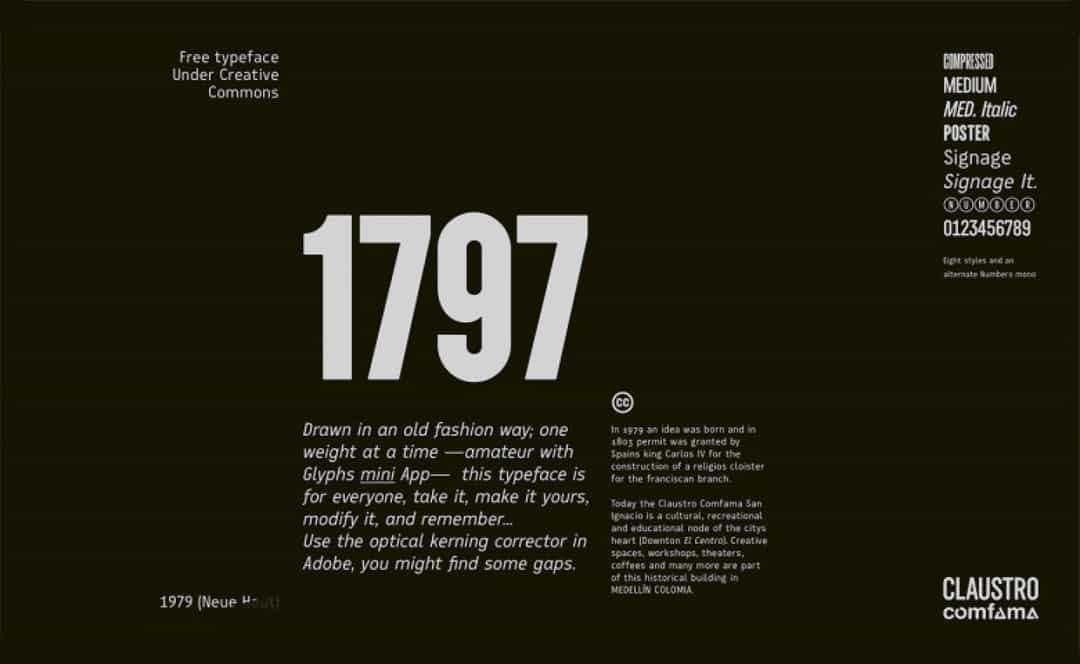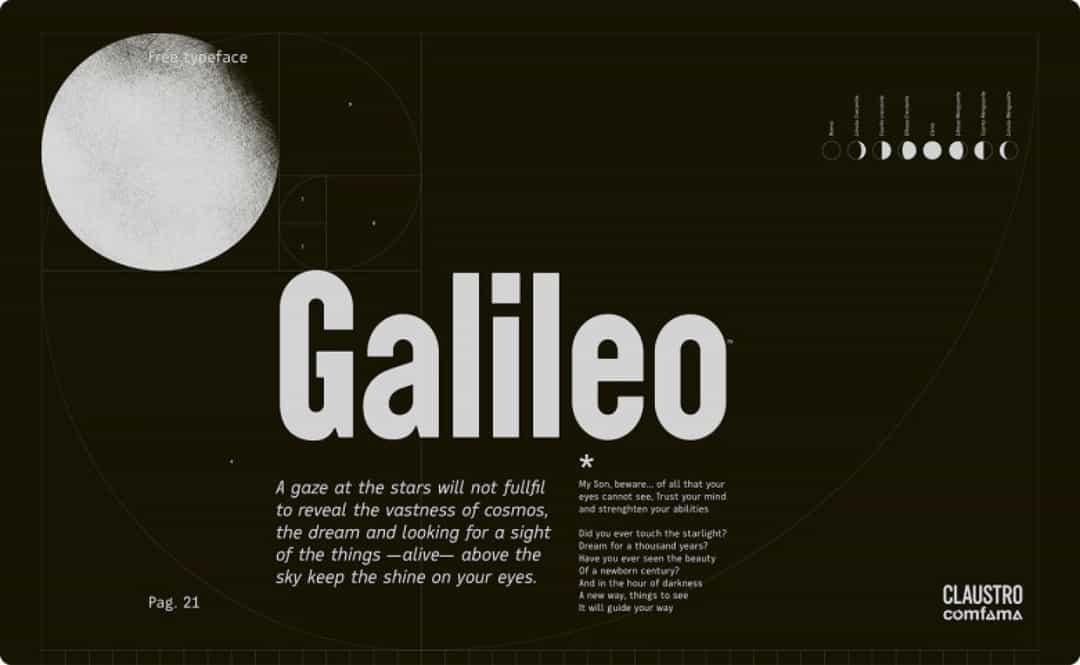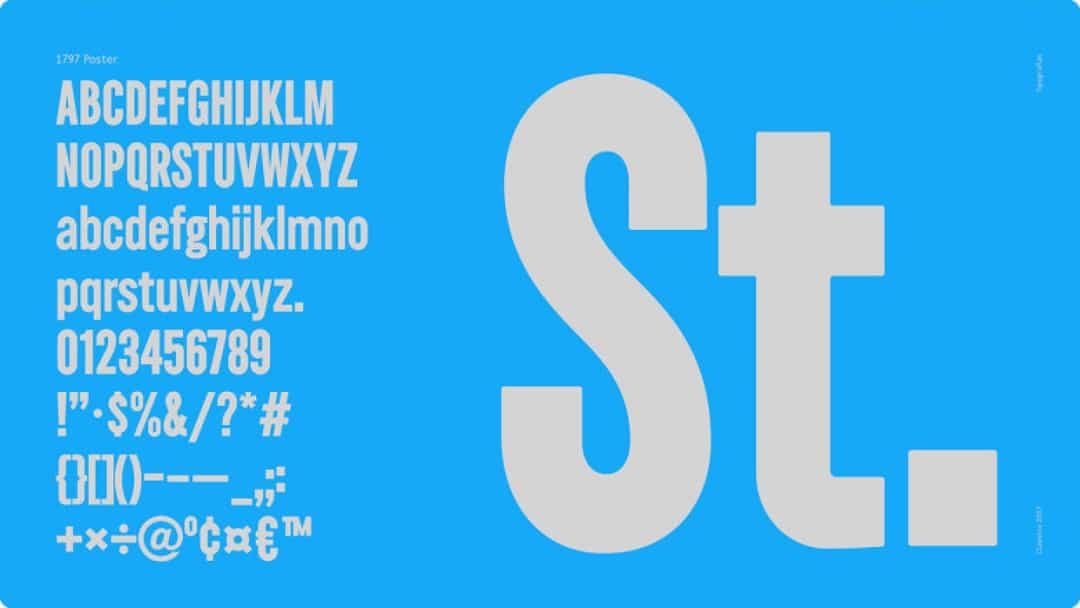
Discover 1797 Claustro Comfama Font, part of the Sans Serif collection—a versatile and unique font perfect for adding a personal touch to your projects. Download it for free and enjoy crafting designs with style, from invitations to social media posts. This font is available exclusively for personal use, giving you the freedom to create without limits. Unlock your creativity with 1797 Claustro Comfama Font today!
1797 Cluustro Comfama Font is an elegant sans serif font designed to complement every work project you undertake. Create stunning headings, invitations and logos – not to mention stunning headings! Perfect for headers, displays and invitations of weddings as well as save-the-dates or save-the-date cards – making your work shine with its use!